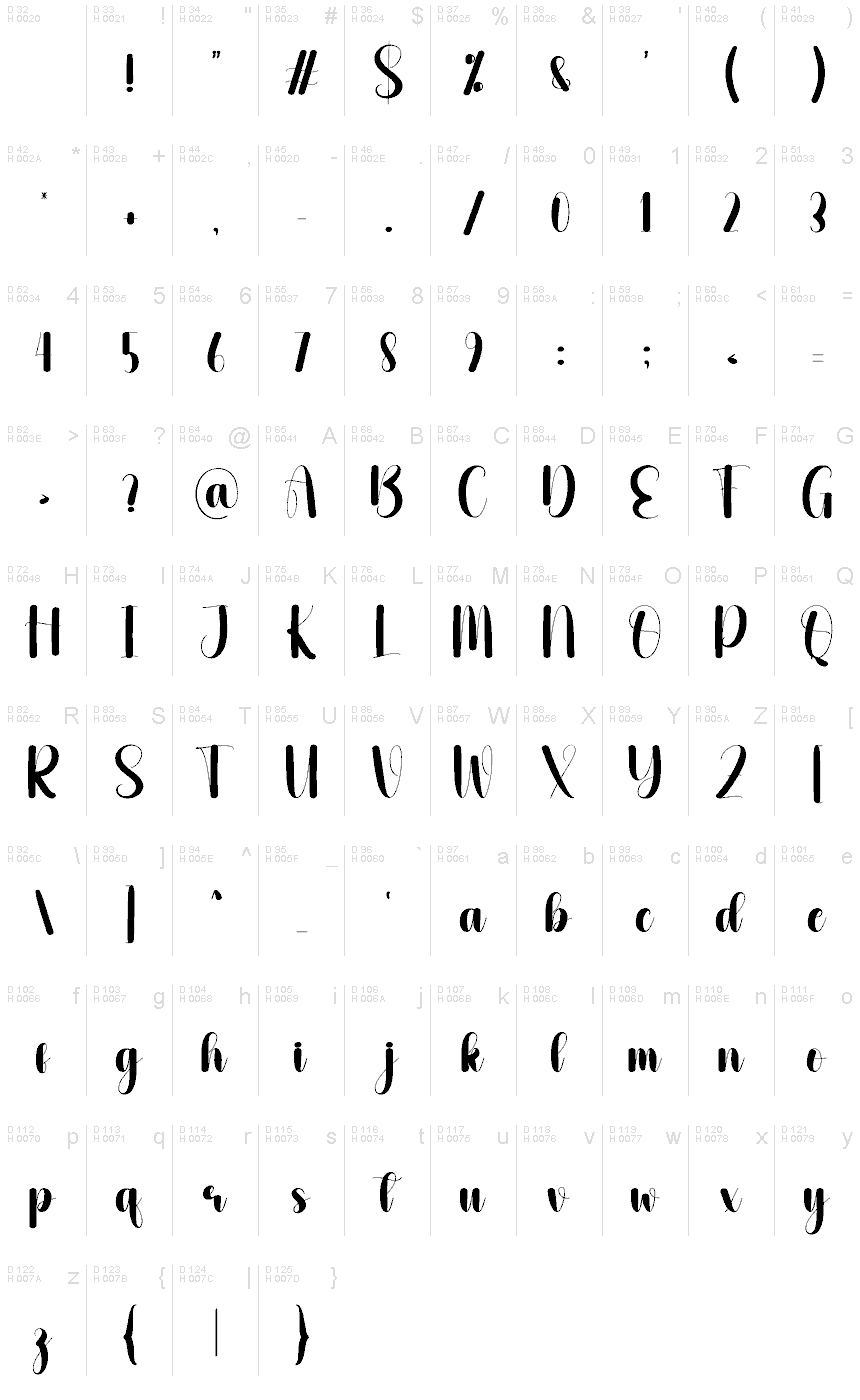
Bigwaves
Bigwaves font by Andi Moz is a handwritten-style typeface that combines elegant, smooth flow with casual sophistication. Each letter gracefully transitions into the next, capturing an artistic charm that’s both inviting and versatile. This free font embodies a gentle appeal suitable for various design needs.
Use it in branding, social media posts, invitations, book covers, apparel designs, logos, packaging labels, advertisements, greeting cards and more. Let Bigwaves enhance your projects with its uniquely charming style.